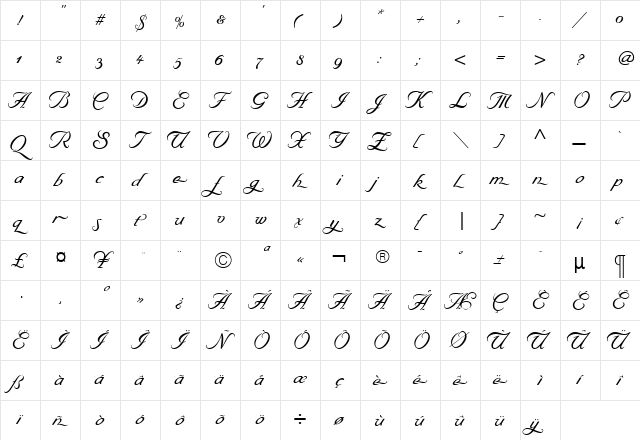
ByronMediumSwash Roman
Design Context for ByronMediumSwash Typeface
ByronMediumSwash brings a calligraphic fluidity to the page — its connecting strokes and expressive curves give it an unmistakably human quality.
Font Pairing: Combine ByronMediumSwash with a simple geometric sans for maximum contrast — the tension between flowing curves and clean structure is a classic typographic pairing.
Pro Tip: Use ByronMediumSwash for short runs of text — names, titles, or taglines. Extended body copy in script faces tires the eye quickly.